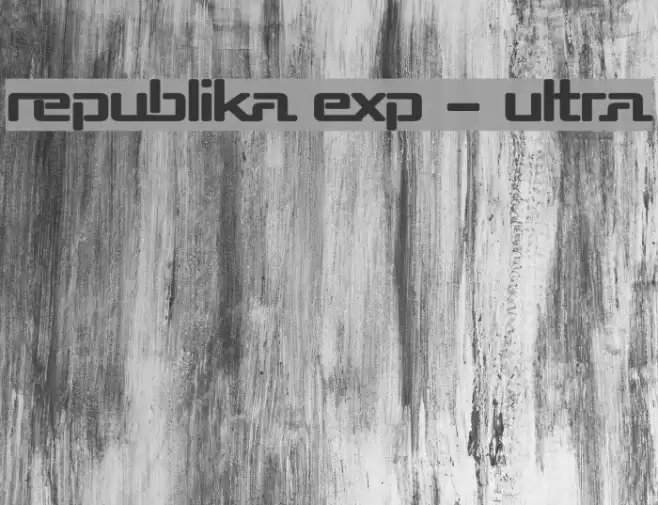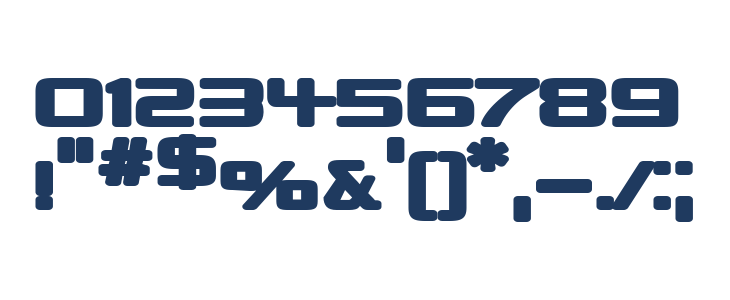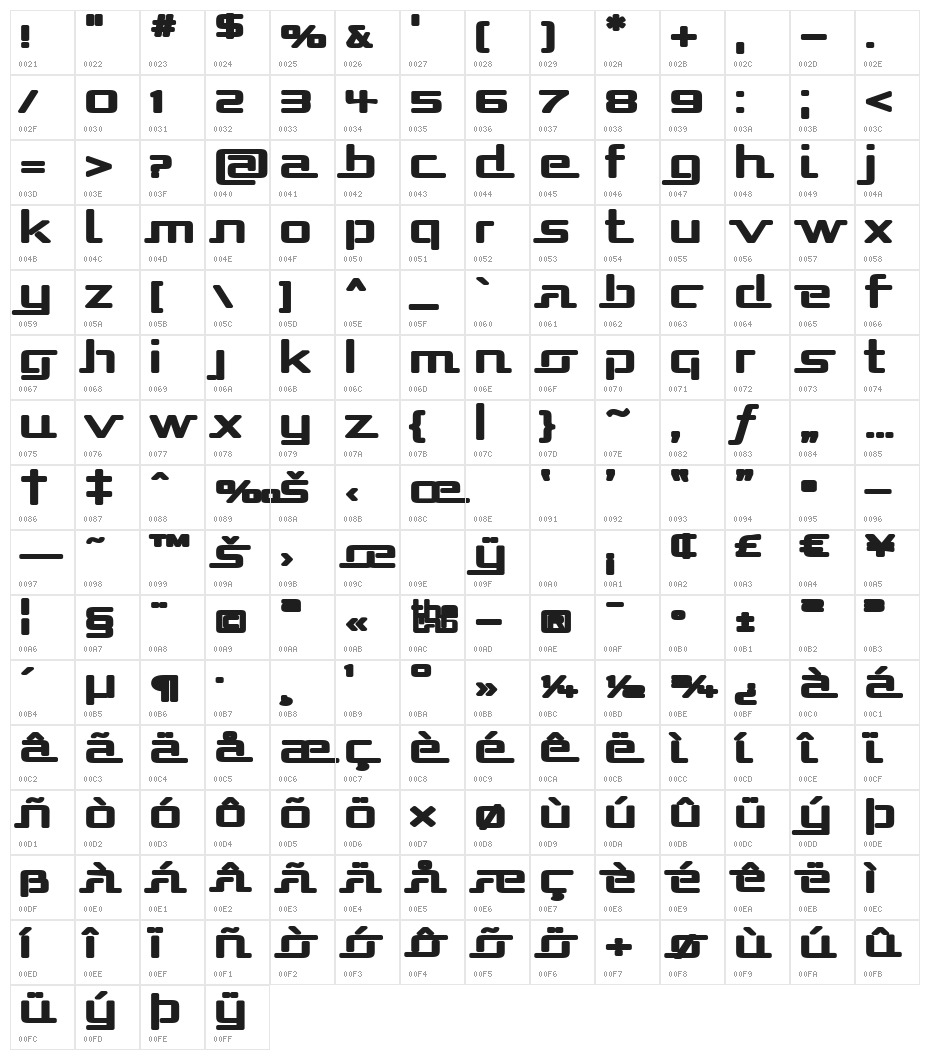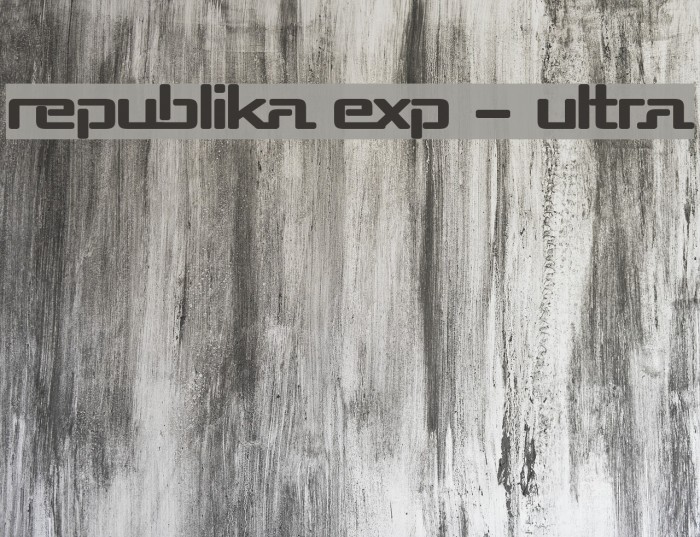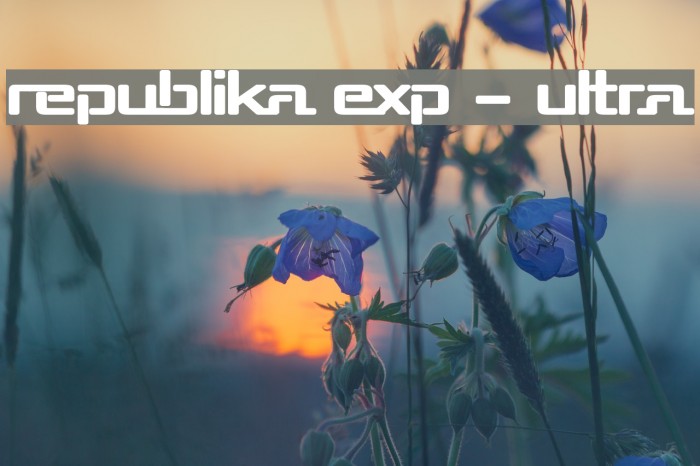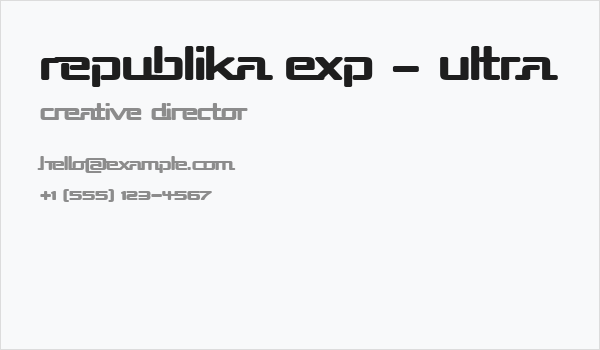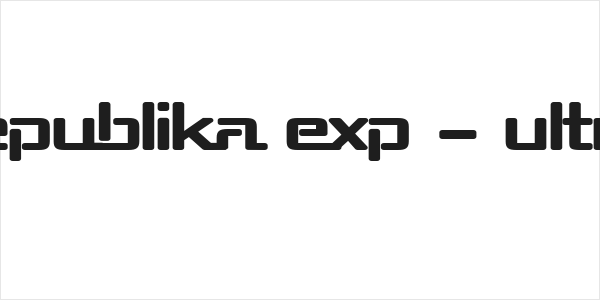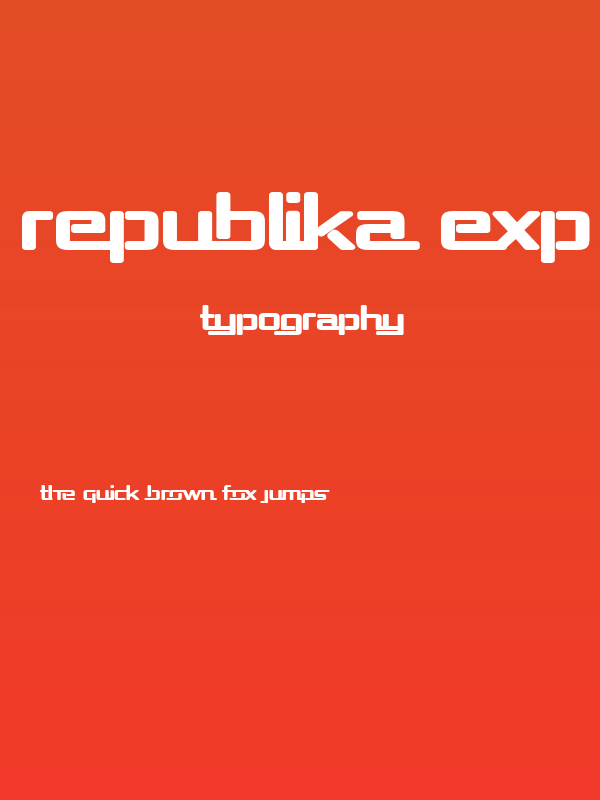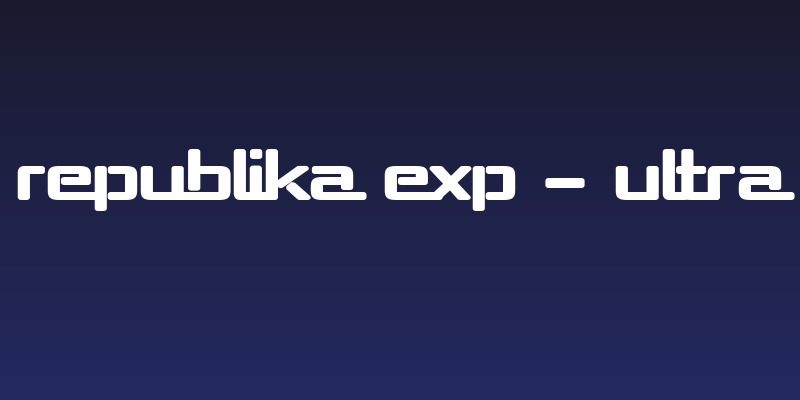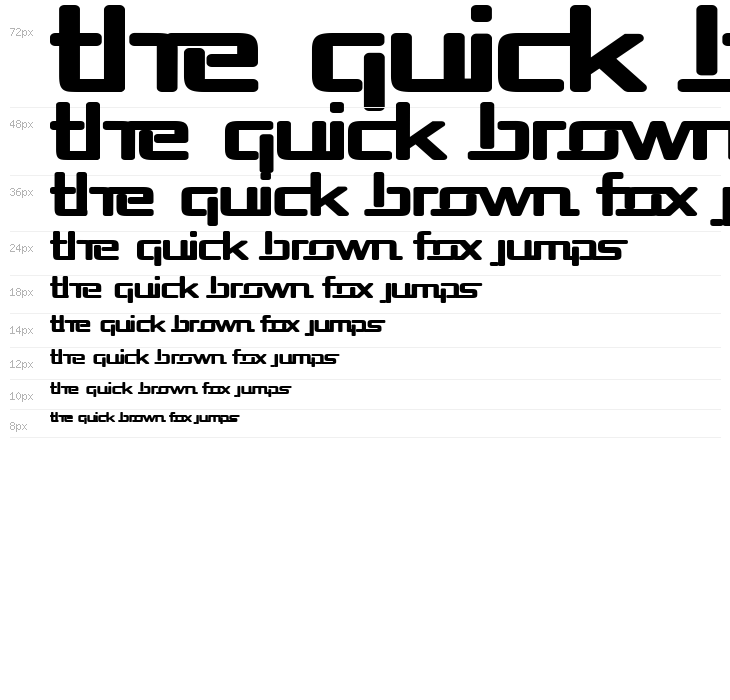
Republika Exp - Ultra Font
Republika Exp - Ultra Description
This font features a bold, futuristic design with a geometric structure. The characters are constructed with thick, uniform strokes and rounded corners, giving it a modern and sleek appearance. The uppercase and lowercase letters maintain a consistent height, enhancing readability while preserving a unique style. The numerals and special characters follow the same design principles, ensuring a cohesive look across all glyphs. The font's distinct style makes it ideal for projects that require a contemporary and tech-inspired aesthetic.
A bold, futuristic font with geometric shapes and rounded corners from Uncategorized fonts.
- Proposed Projects: Ideal for technology branding, modern posters, digital interfaces, and sci-fi themed designs.